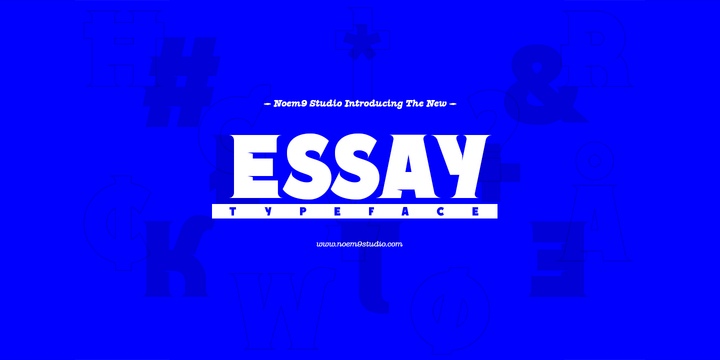
Essay Font
Essay Font is perfect for academic publishing houses, scholarly journal layouts, educational institution materials, research paper presentations, thesis documentation, literary magazine designs, academic conference graphics, university press publications, scholarly book covers, and intellectual discourse communications. This refined typeface excels in applications where scholarly authority, academic excellence, and intellectual rigor are fundamental brand characteristics.
What makes Essay Font exciting is its masterful embodiment of academic sophistication through carefully crafted letterforms that capture the essence of scholarly discourse and intellectual inquiry with exceptional readability and professional credibility. The font features systematically balanced character construction with scholarly details and optimized proportions that immediately convey intellectual authority, academic rigor, and the kind of typographic excellence essential for serious academic communication. Its distinguished presence makes it perfect for institutions and publications that serve the academic community and maintain the highest standards of scholarly presentation.
The Essay Font family typically includes comprehensive weight options from Regular to Bold, often featuring italic variations that enhance the academic versatility essential for scholarly citations, emphasis, and formal academic writing standards. Many versions include small caps, old-style numerals, and extensive ligatures that reflect traditional academic publishing typography and scholarly documentation requirements. Some collections include alternate characters with enhanced scholarly styling and academic symbols that complete the intellectual presentation for comprehensive educational applications.
Whether you're developing materials for educational institutions, creating publications for academic audiences, or designing content that requires absolute scholarly credibility and intellectual authority, Essay Font Free Download delivers the academic sophistication that scholarly organizations demand. Its authoritative character makes it perfect for publications that serve researchers, academics, and students who require the highest standards of typographic clarity and intellectual presentation. The font's ability to convey both scholarly expertise and accessible readability makes it particularly valuable for academic publishers, educational institutions, and research organizations seeking to communicate complex ideas through typography that demonstrates their commitment to intellectual excellence, scholarly rigor, and the kind of academic presentation standards that facilitate clear communication of important ideas and research findings.